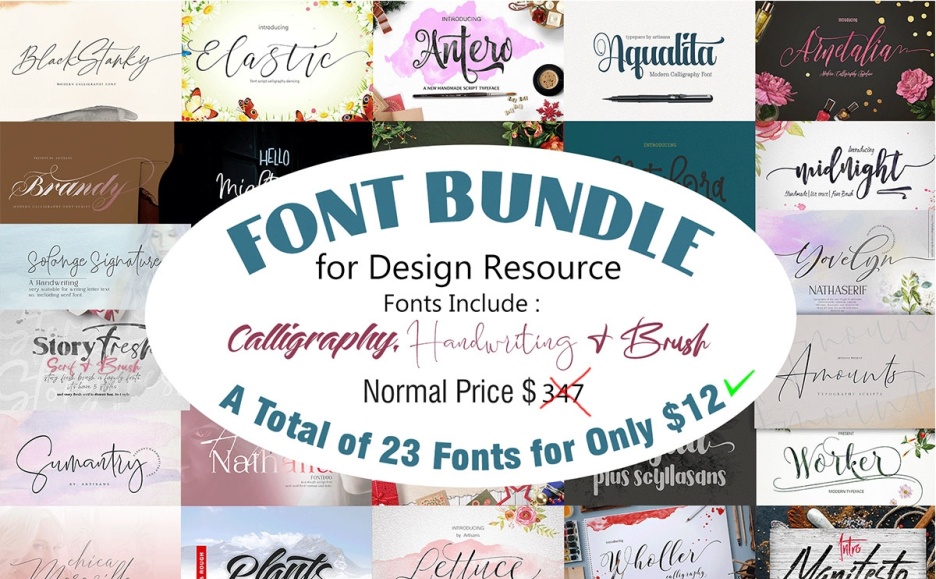
Fonts Bundle
Elevate your design projects with our comprehensive Fonts Bundle, featuring a diverse selection of typefaces suitable for various applications. This bundle includes a mix of serif, sans-serif, script, and display fonts, allowing for creative flexibility in your branding, logos, web design, print materials, and user interfaces.
• Variety of font styles: serif, sans-serif, script, and display
• Multiple weights and styles for each font
Each font in this bundle is meticulously crafted to ensure readability and aesthetic appeal. The different weights allow you to choose the perfect style for your project, whether it’s a bold headline or a delicate body text.
• Utilize different font styles to create a cohesive brand identity.
• Experiment with weights to enhance visual hierarchy in your designs.